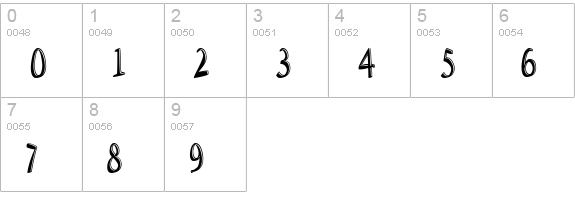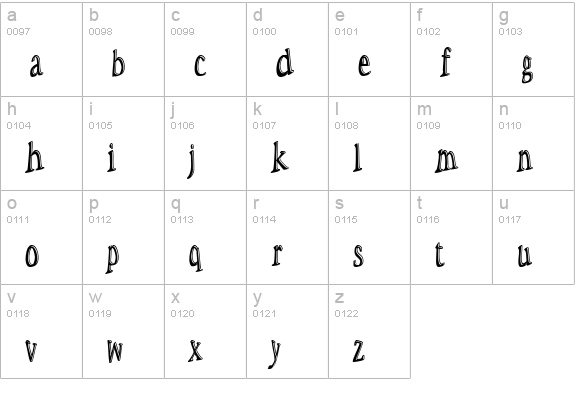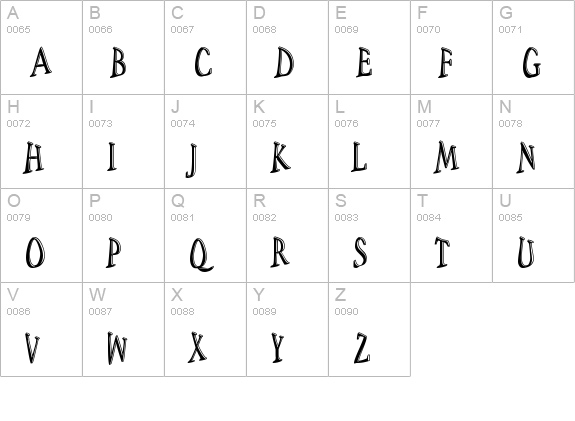
Space Woozies 3D Font Details
Space Woozies 3D font is a mesmerizing and captivating typeface that will transport you to the outer realms of the galaxy. Its unique design combines futuristic elements with a touch of whimsy, creating a truly extraordinary visual experience. This font features three-dimensional letterforms that are adorned with intricate details, giving them a sense of depth and dimensionality. Each character is expertly crafted to evoke a sense of wonder and awe, making it perfect for projects that aim to take your audience on a cosmic journey. What sets Space Woozies 3D font apart is that it is freely available to download at FontsMarket.com. This means that you can easily access this extraordinary typeface without any cost or hassle. Whether you are a professional designer or a hobbyist, this font provides you with endless creative possibilities. With Space Woozies 3D font, you can effortlessly add a touch of otherworldly charm to your designs. Use it in logos, headlines, posters, or any project that requires a bold and eye-catching font. Its versatility allows it to be used in various contexts, making it suitable for both digital and print applications. The attention to detail and the careful craftsmanship of Space Woozies 3D font make it a truly remarkable addition to any designer's toolkit. Its ability to captivate and mesmerize is unparalleled, making it a font that will leave a lasting impression on your audience. So, why wait? Download Space Woozies 3D font for free at FontsMarket.com and embark on a cosmic typography adventure that will elevate your designs to new heights. Let your imagination soar beyond the stars with this captivating and freely available typeface.